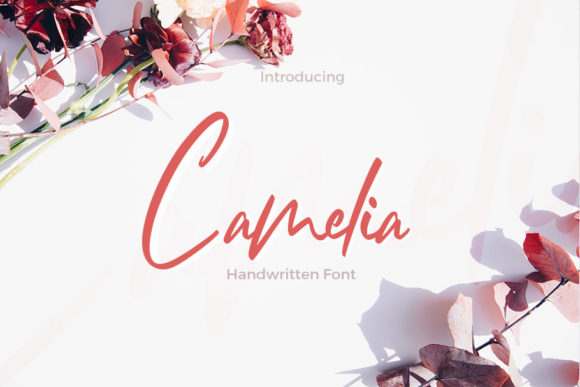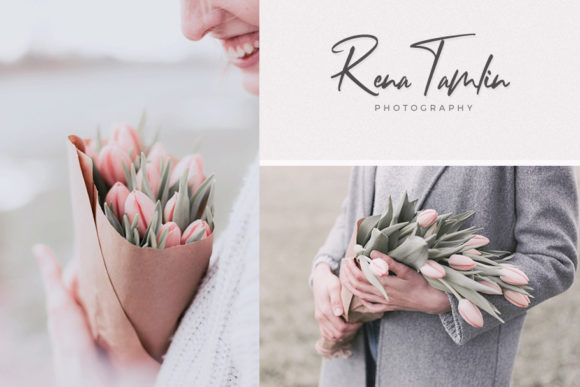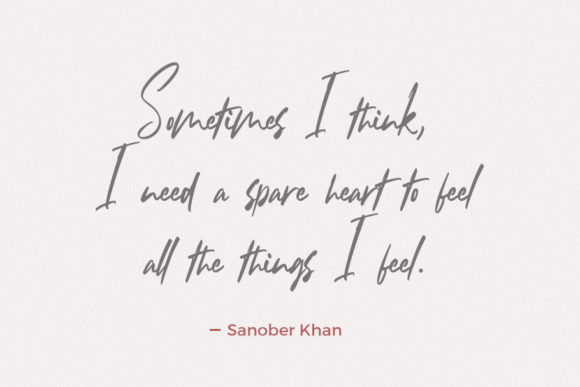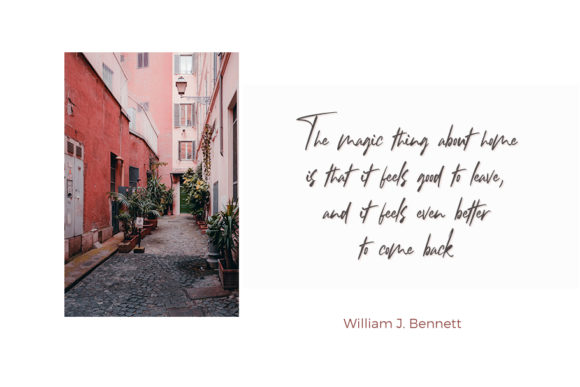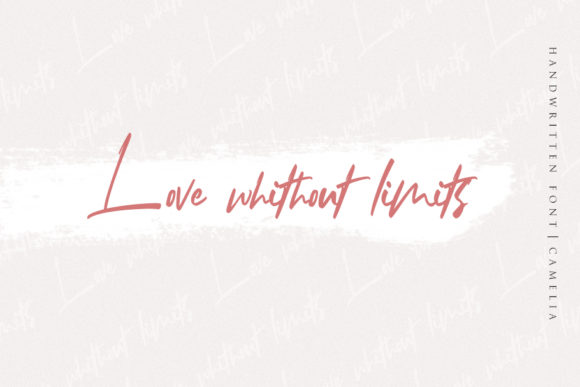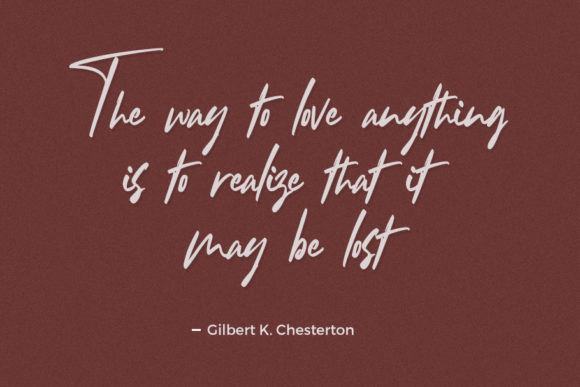
Camelia Font
About Camelia Font
Camelia is a casual-chic script font. It’s perfect for logos, stationery, branding, wedding invitations and much more!